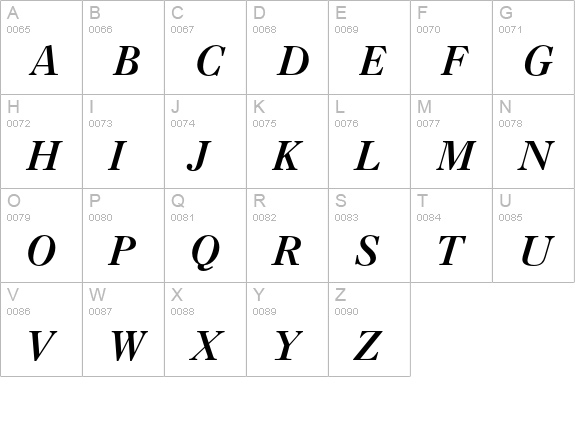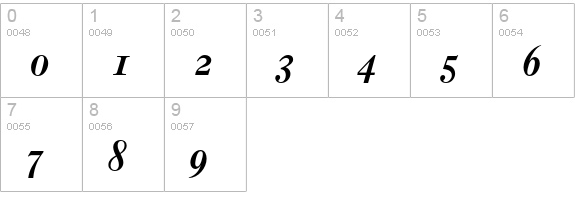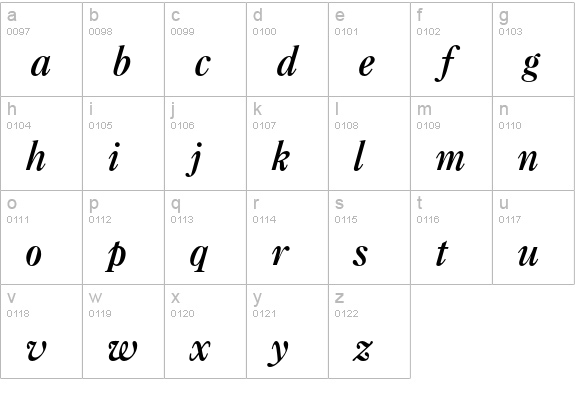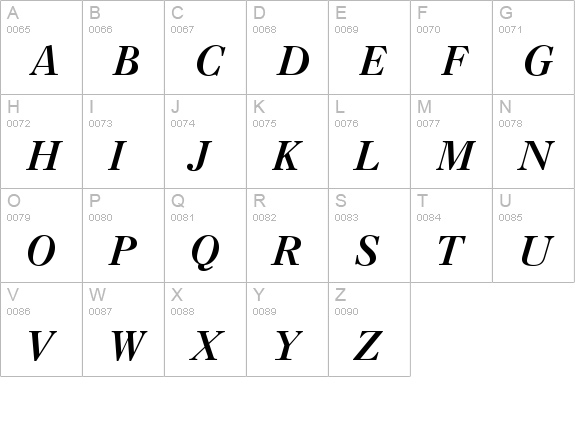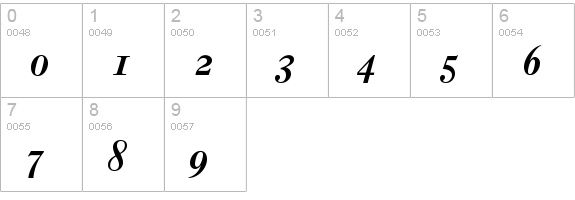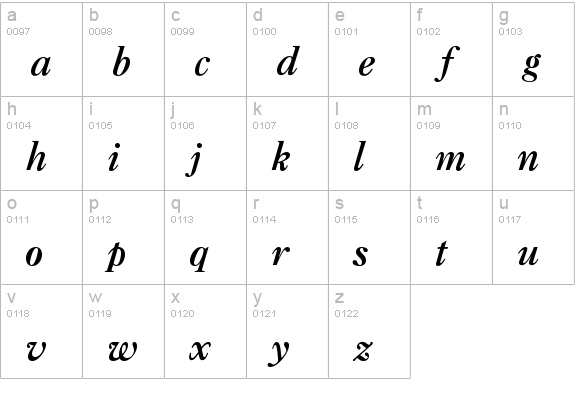
Caslon 3 Italic Oldstyle Figures Font Details
Caslon 3 Italic Oldstyle Figures is a distinctive, italic variant in the Caslon typeface family \xE2\x80\x94 well suited to design and typography projects.
Caslon 3 Italic Oldstyle Figures font is a classic and elegant typeface that exudes sophistication and grace. The graceful slant of the italic style combined with the oldstyle figures gives this font a timeless and refined appearance. Perfect for adding a touch of elegance to any design project, from invitations to branding to editorial layouts. And the best part? Caslon 3 Italic Oldstyle Figures font is available for free download at FontsMarket.com. Don't miss out on the opportunity to enhance your designs with this beautiful and versatile typeface. Download now and elevate your typography game with Caslon 3 Italic Oldstyle Figures font.